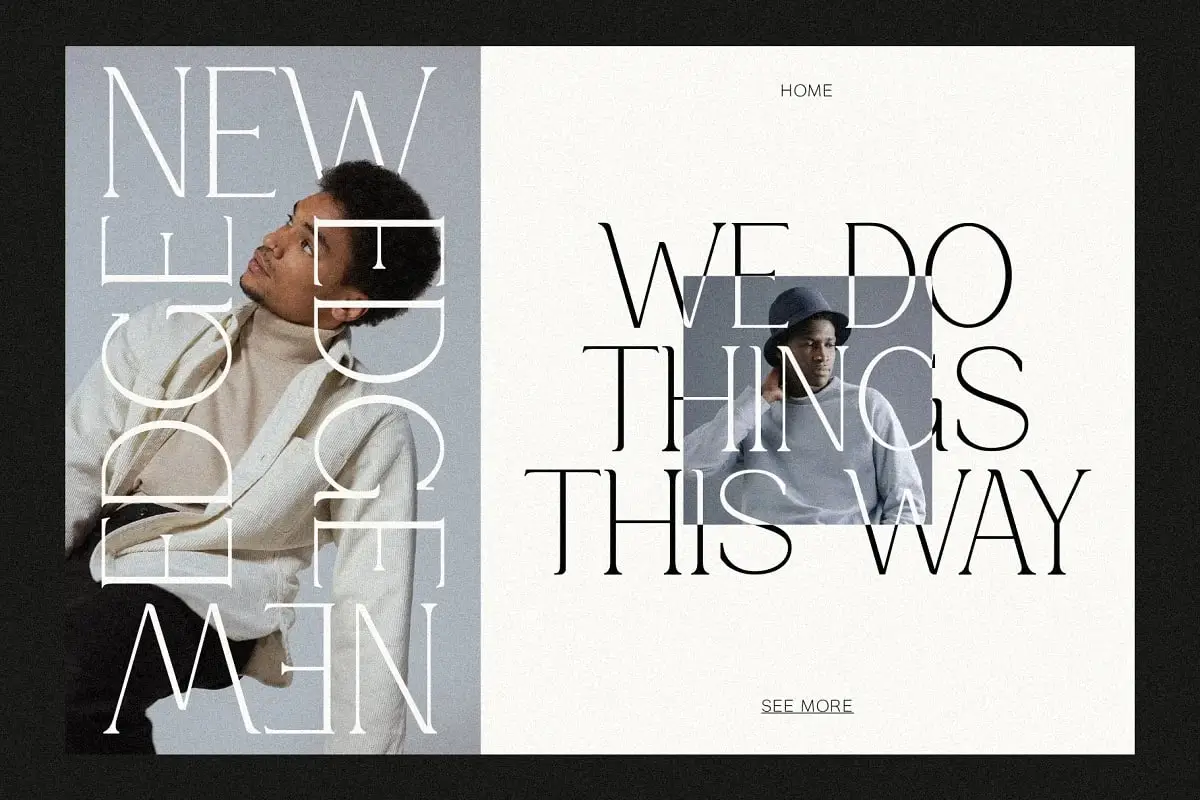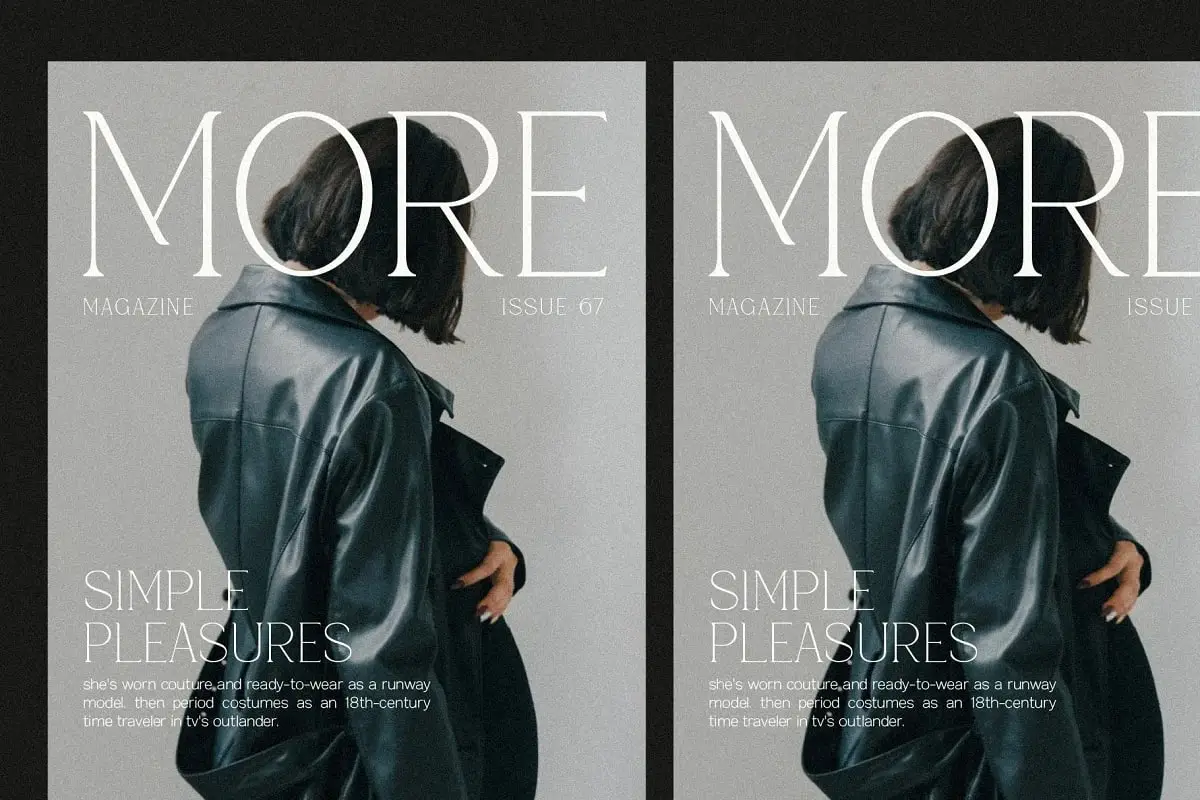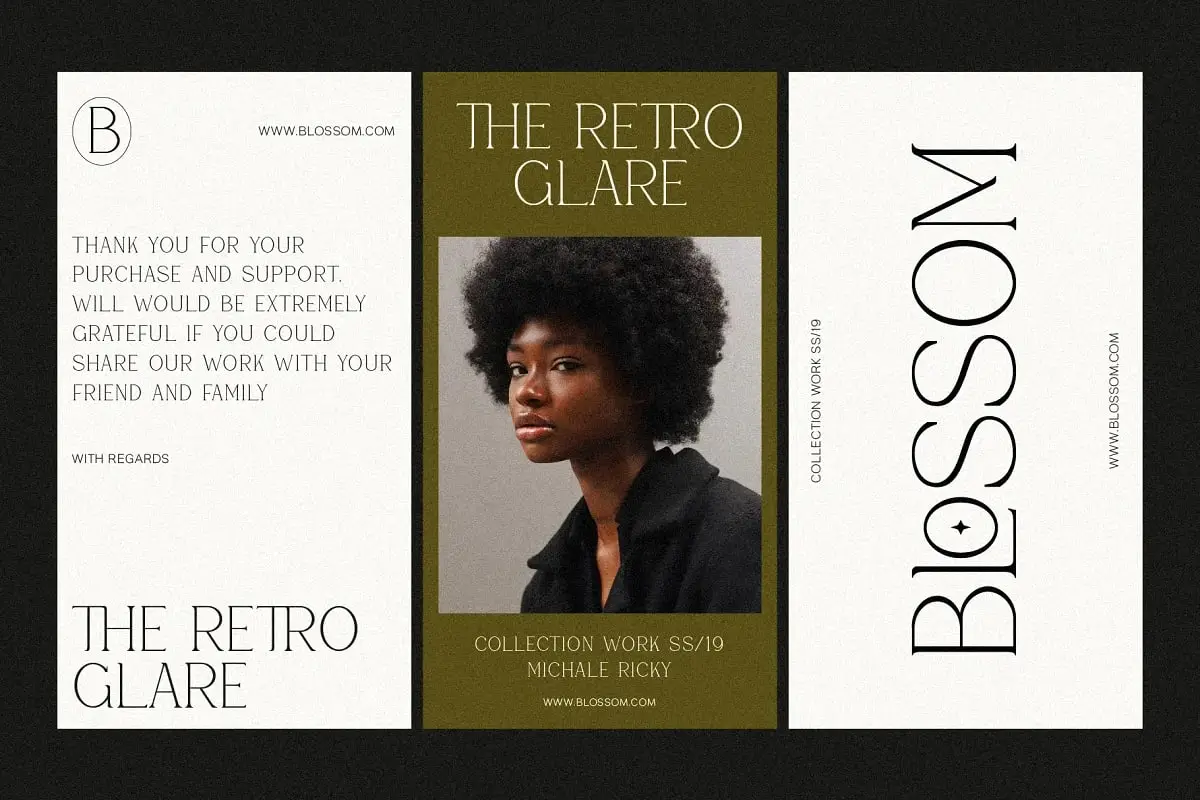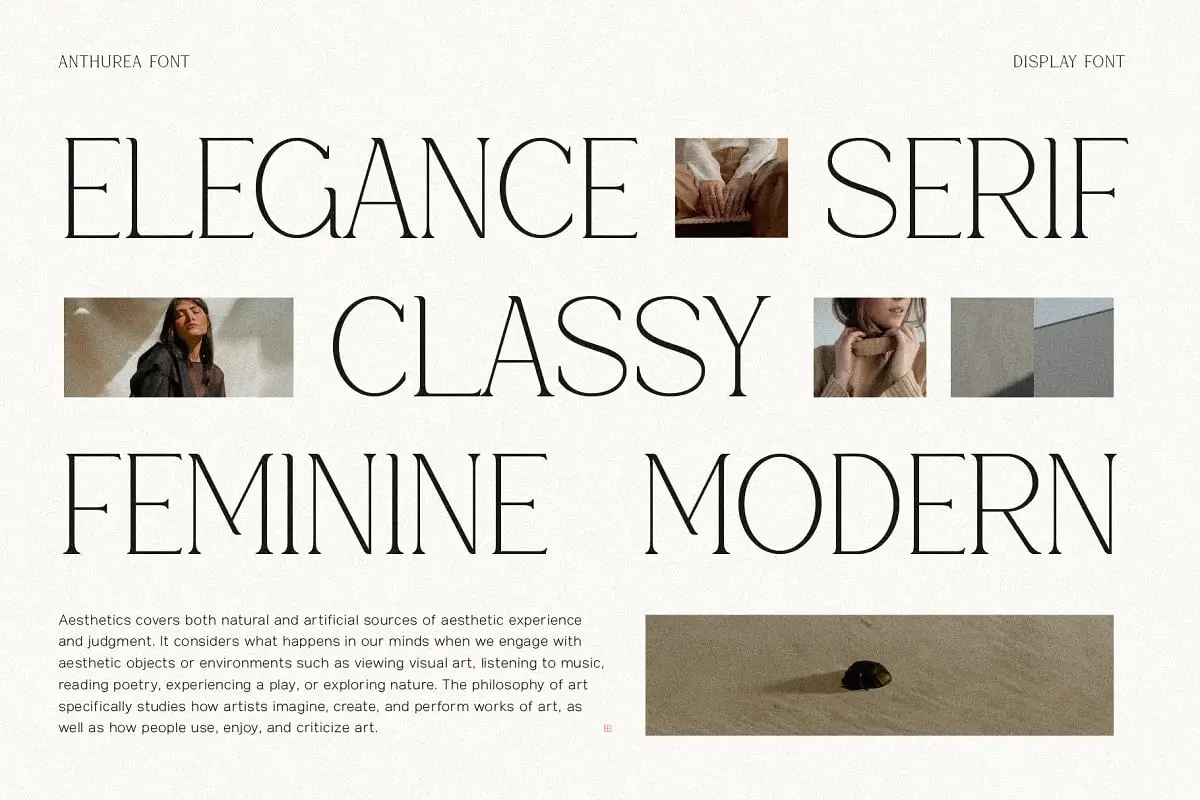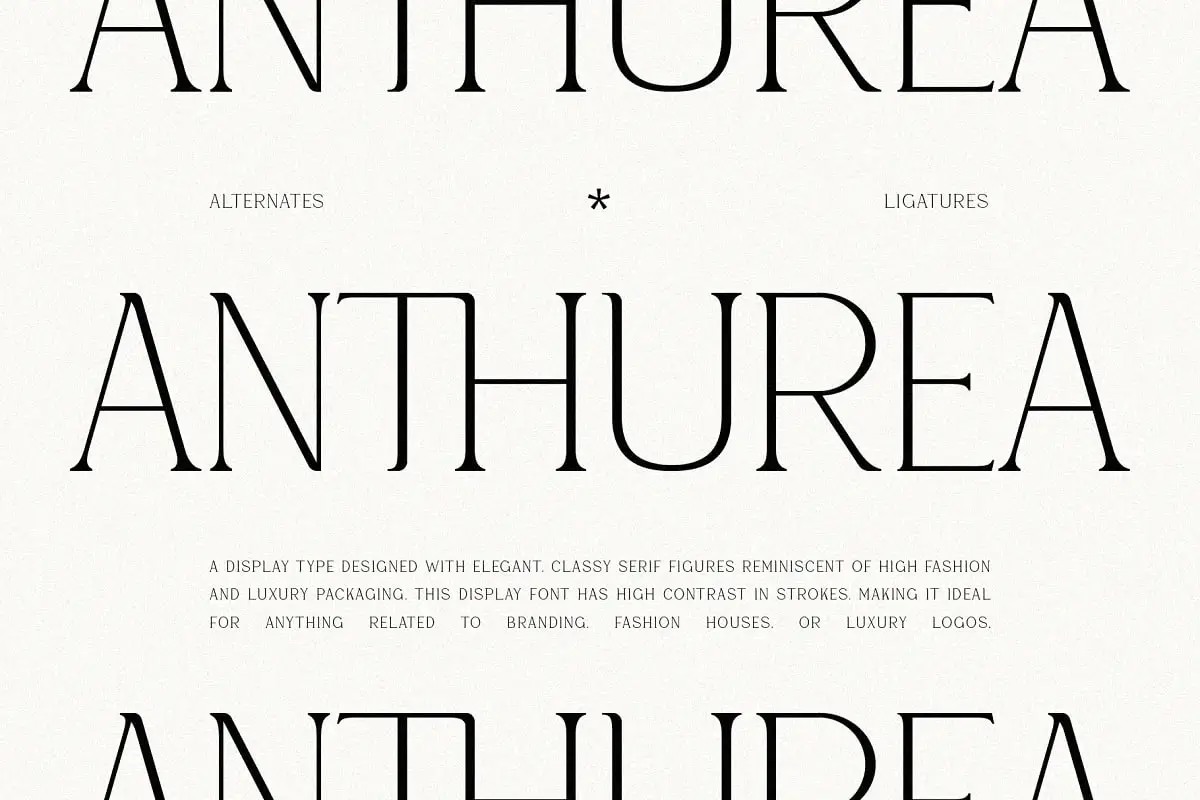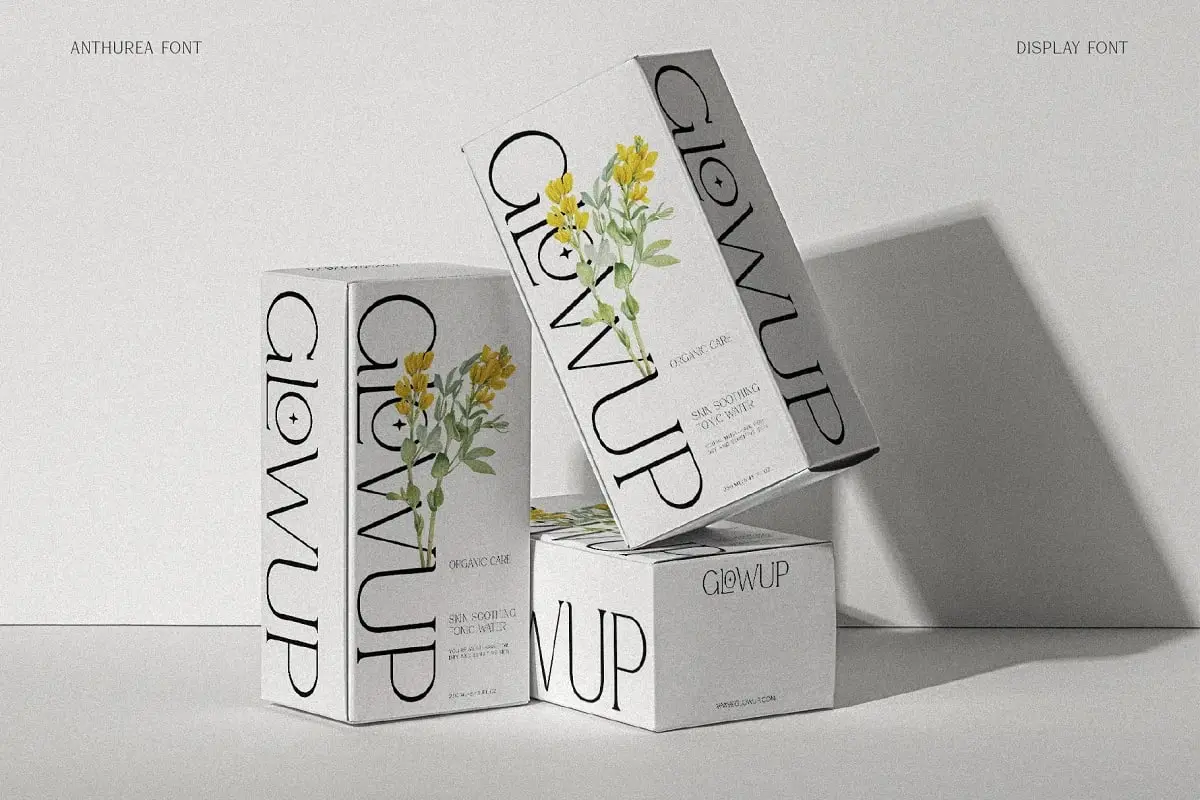
Anthurea-Classic Serif Font
Introducing the Anthurea-Classic Serif Font, a timeless typeface that combines elegance with readability. This font is perfect for a variety of design projects, including branding, logos, web content, and print materials. Its classic serif styling adds a touch of sophistication to any text.
• Stylish serif design
• High legibility in both large and small sizes
Utilize Anthurea for elegant headings, invitations, or any project that requires a classic touch. Its versatility makes it suitable for both digital and print applications.